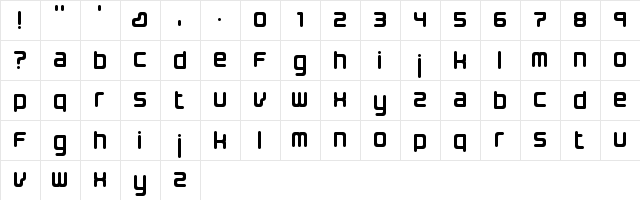
Heart karen Regular
| Designer | Few Karen |
Design Context for Heart karen Typeface
Heart karen offers clean, dependable letterforms without strong stylistic allegiance, making it a practical choice for designers who need flexibility.